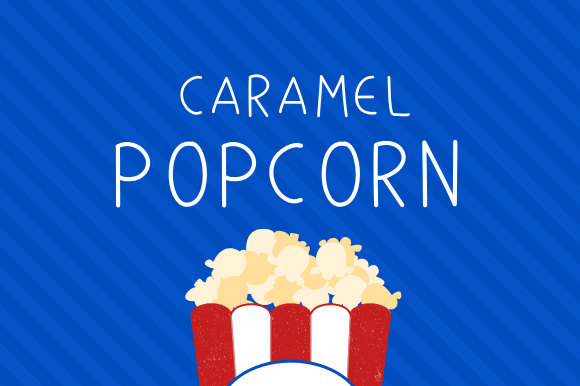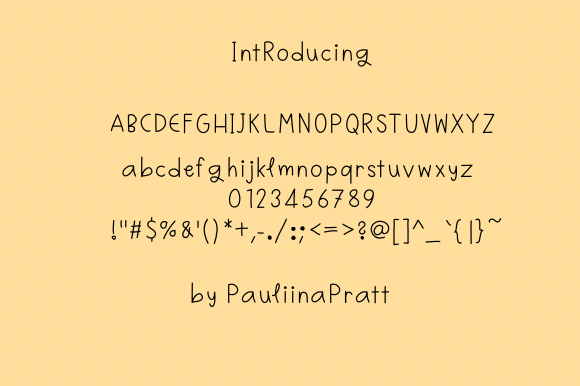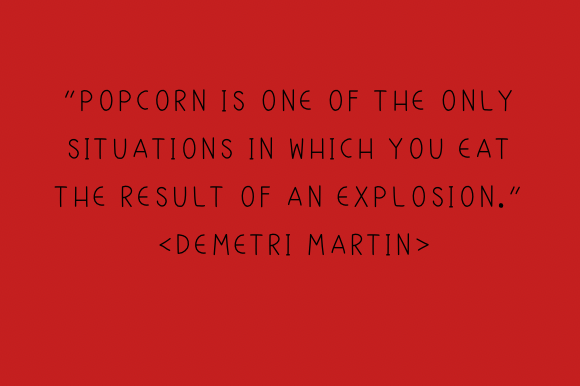
Caramel Popcorn Font
About Caramel Popcorn Font
Caramel Popcorn is a cute handwritten font. It has beautiful and well-balanced characters which makes it suitable for a wide range of crafty ideas.
You can use this font to write on greeting cards, frames, mugs, shopping bags, wall art, phone cases, stickers, decorations, or anything that needs a casual and friendly touch.